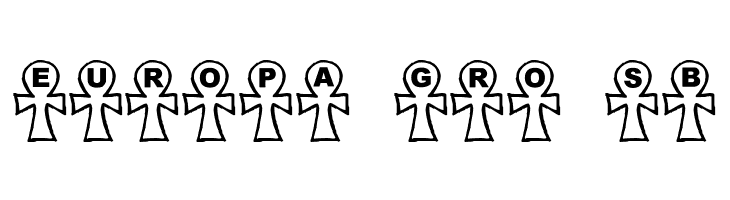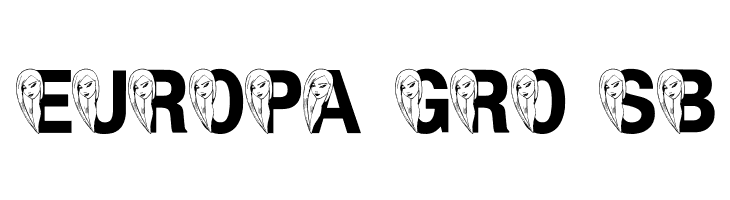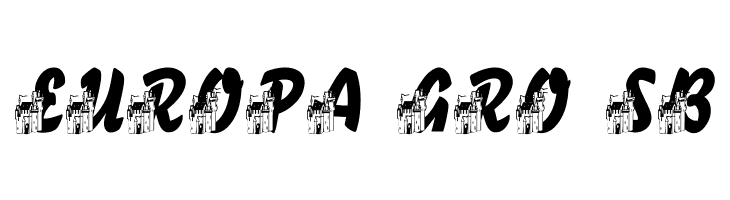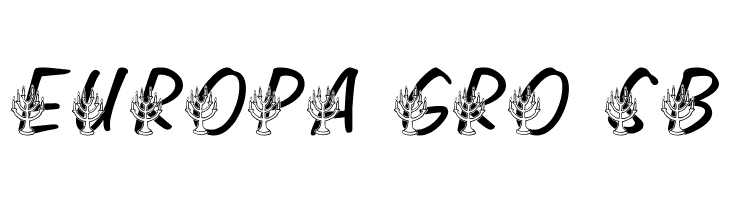
• LMS Deck The Font
An elegant, ornament-themed decorative font with high contrast script characters.
• LMS Eagle Eyed
A bold, decorative font featuring an eagle motif integrated into each letter.
• LMS Easter Chick
A whimsical font with letters nestled in Easter chick designs, perfect for festive projects.
• LMS Elephant Tattoo
A decorative font with characters integrated into elephant motifs.
• LMS Ethan's Game
A playful font with soccer ball motifs, ideal for sports-themed designs.
• LMS Everlasting
A decorative font with an integrated ankh symbol in each character.
• LMS Face Forward
A bold, decorative font with integrated face illustrations in each letter.
• LMS Fairytale Chateau
A whimsical, castle-themed decorative font with bold, enchanting characters.
• LMS Festival of Lights
A decorative font with bold, italicized letters and candelabra motifs for a festive look.
• LMS Found In Candice's Garden
A bold, decorative font with floral patterns integrated into each character.